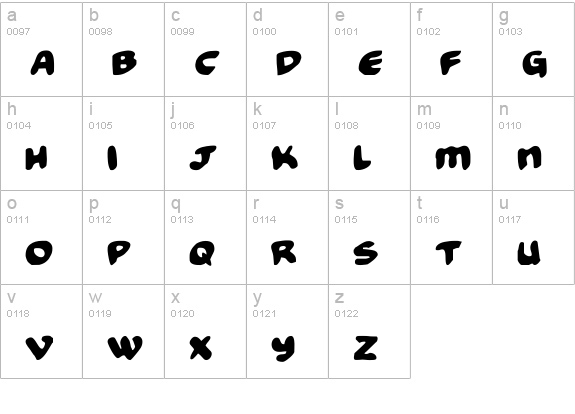
Introducing Funny Pages font, a whimsical and playful typeface that is sure to bring a smile to your designs! This quirky font features charming and unique characters that will add a touch of humor to any project. Whether you're creating posters, greeting cards, or social media graphics, Funny Pages font will help your text stand out in a fun and lighthearted way. The best part? Funny Pages font is completely free to download at FontsMarket.com! So go ahead and let your creativity run wild with this delightful font that is sure to make your audience chuckle. Add a touch of comedy to your designs with Funny Pages font today!